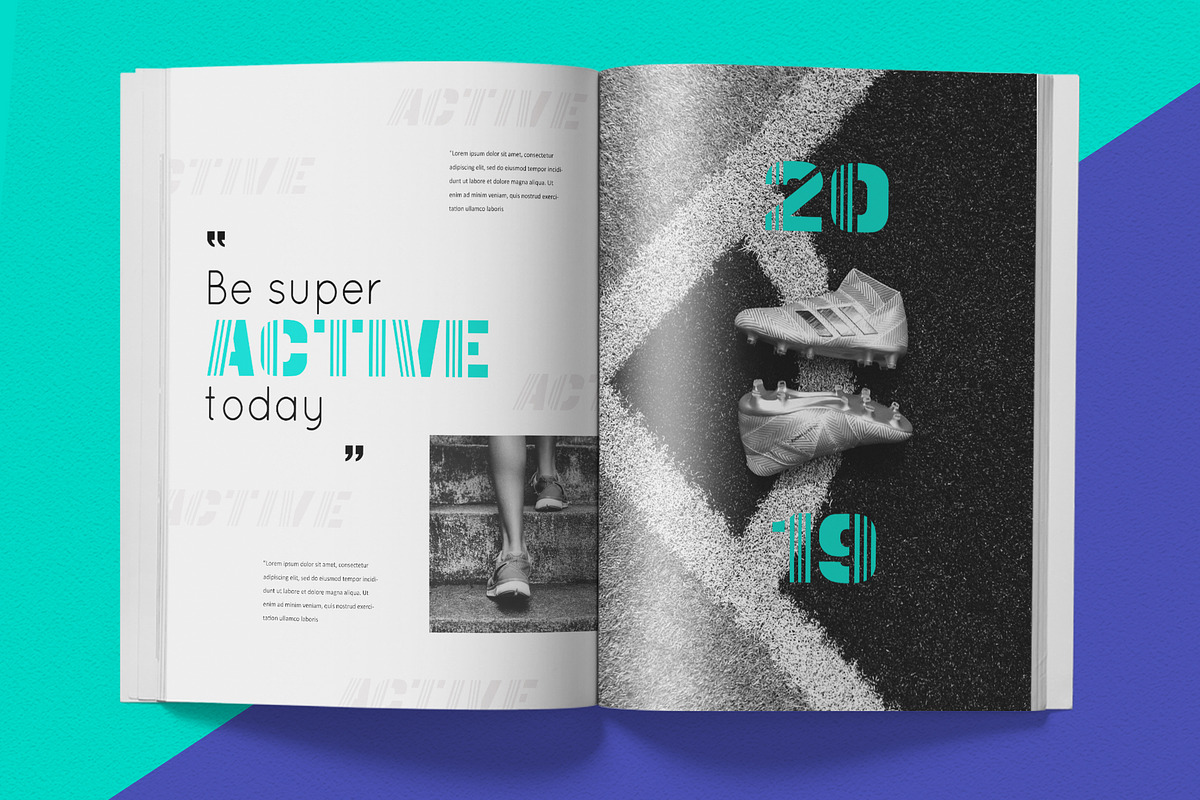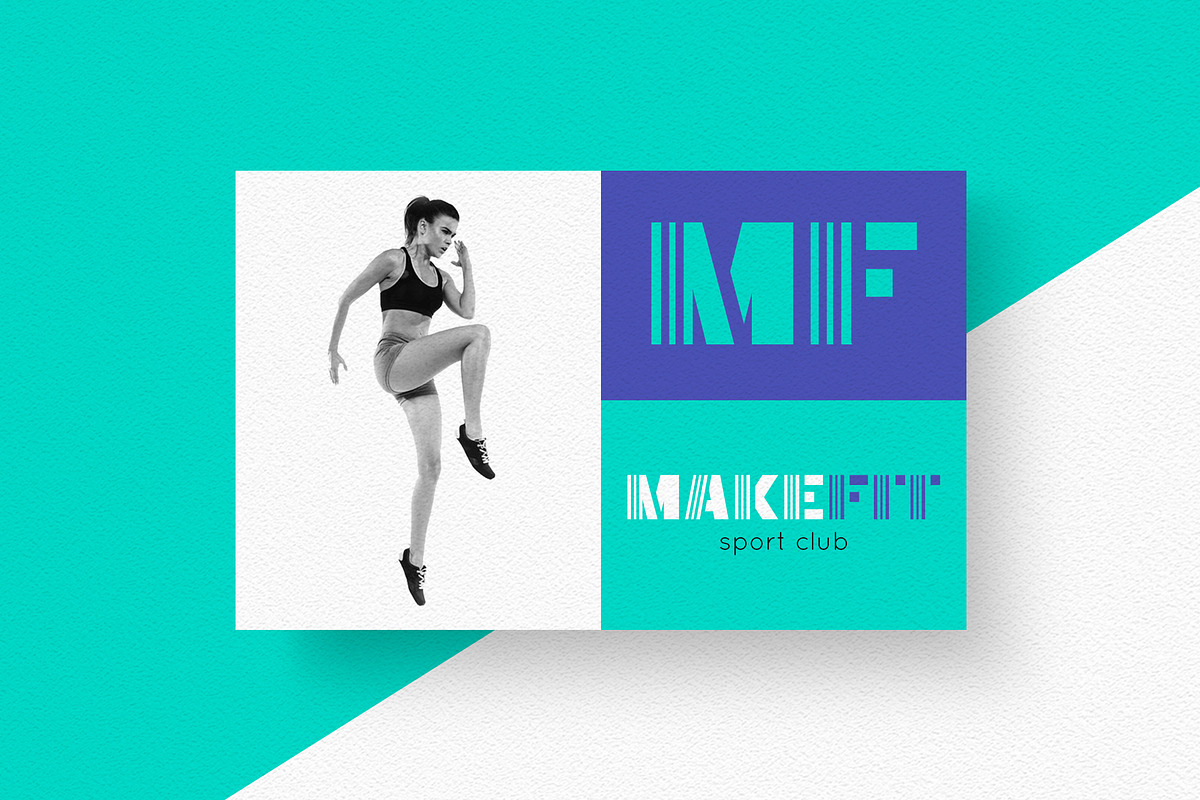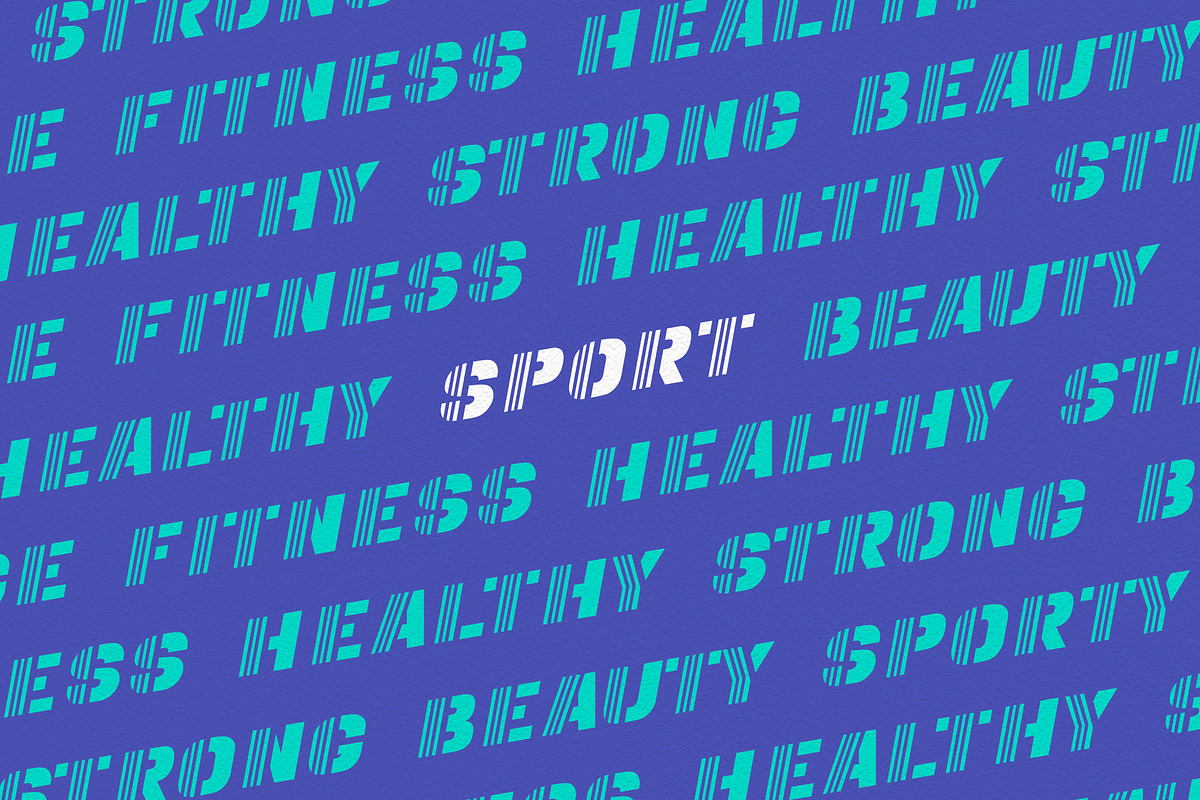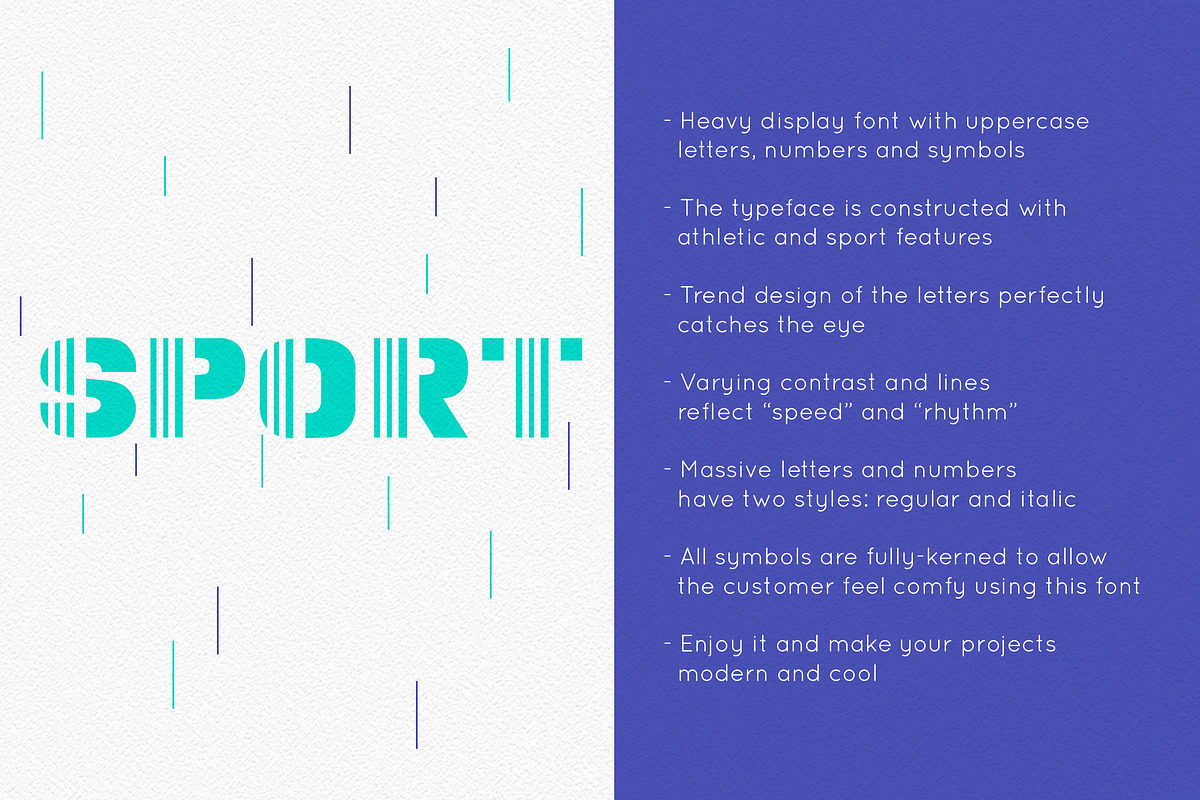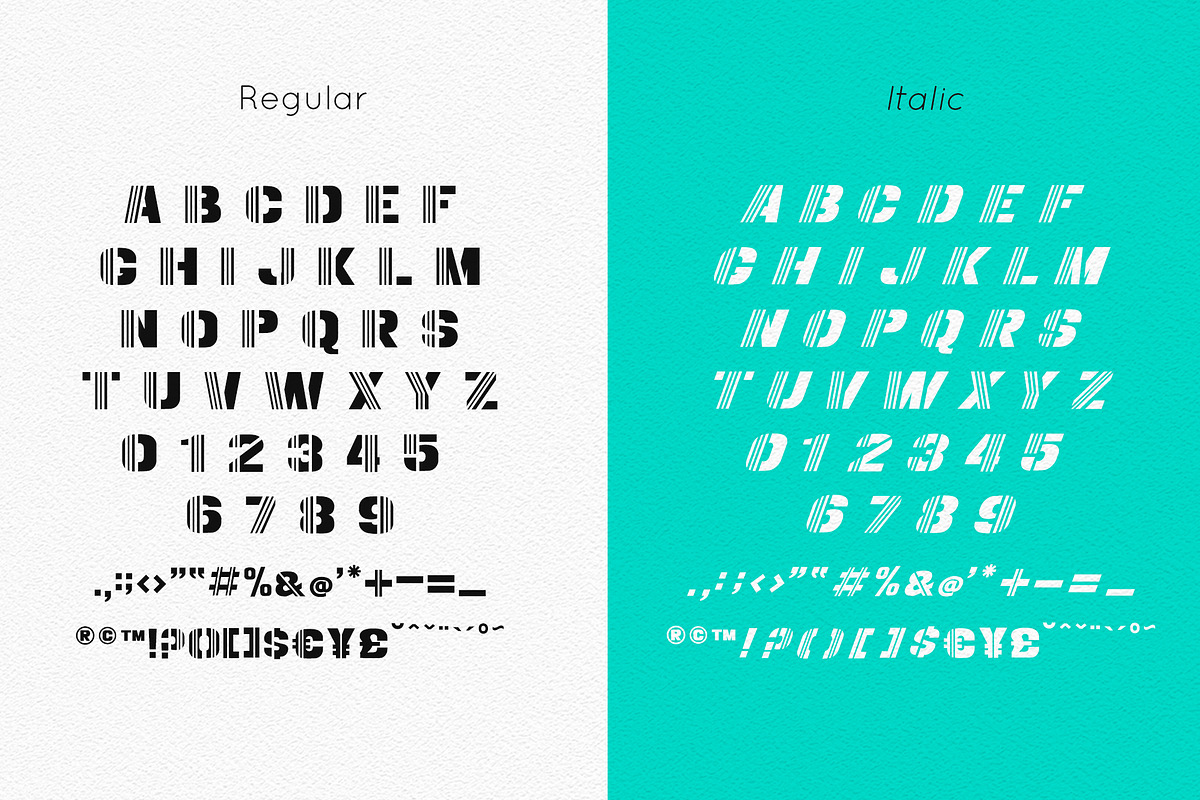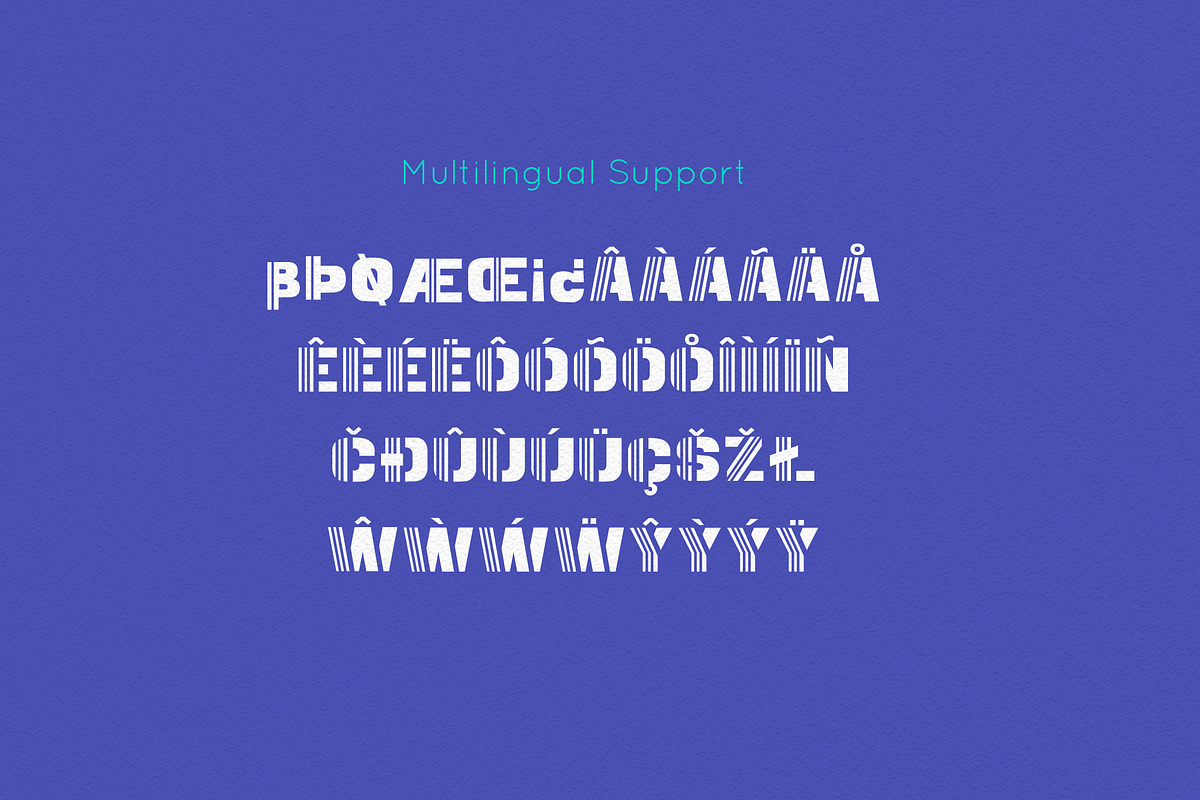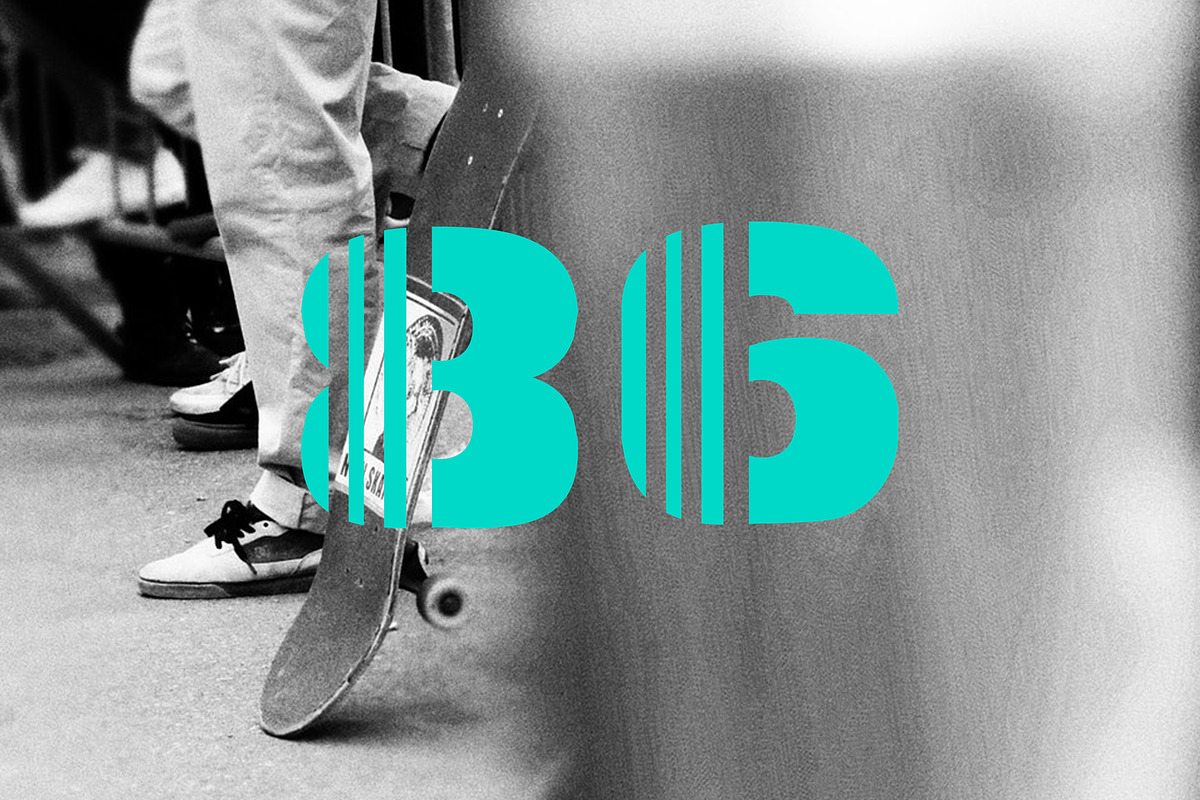
SPORT Sans Serif Display Font
SPORT is extra-loud bold universal and modern font. This font is perfectly suited for a variety of display purposes, including logotypes, badges and labels, advertising, headlines and banners, posters, flyers, packaging, branding, prints and much more.
This font will easily help you to create the best urban and dynamic designs. Posters and flyers will be visible from afar with the help of massive letters' shapes.
SPORT is perfect for designers looking to leave an impression. A simple but significant. It has minimal design. The owner of endless possibilities. If you want your message to scream and shout, then SPORT is your choice.
The typeface is constructed with athletic and sport features. Trend design of the letters perfectly catch the eye. Varying contrast and lines reflect “speed” and “rhythm”. All symbols are fully-kerned to allow the customer feel comfy using this font.
Every font has uppercase letters, numbers & basic punctuation, multiligual support (French, German, Italian, Norwegian, Portuguese, Spanish, Swedish, Swiss German).